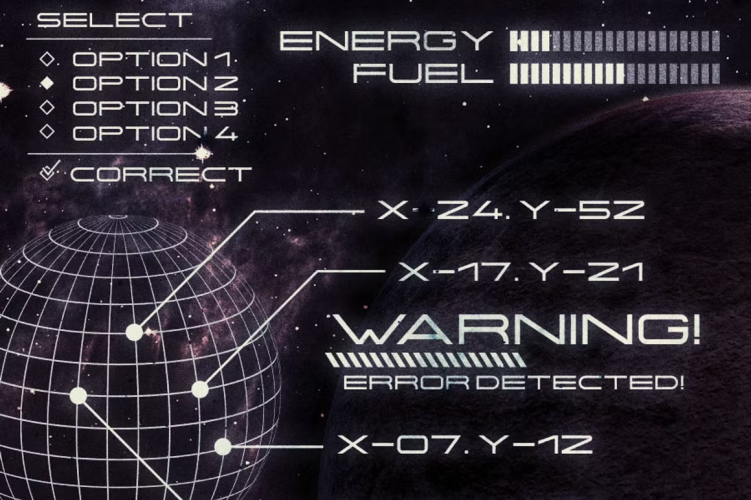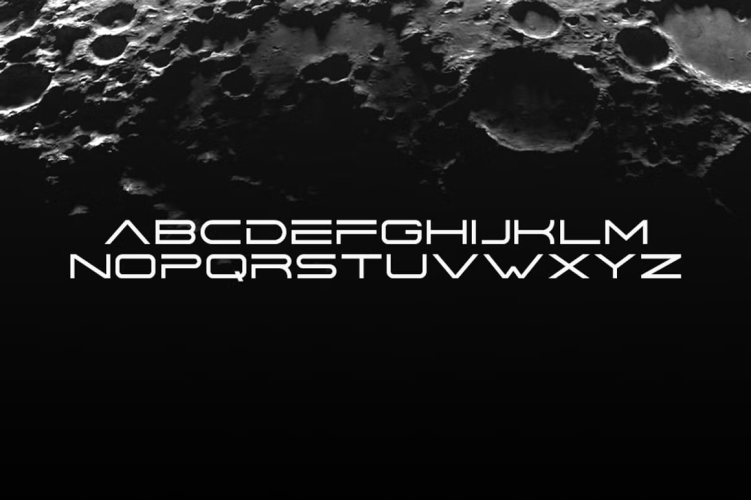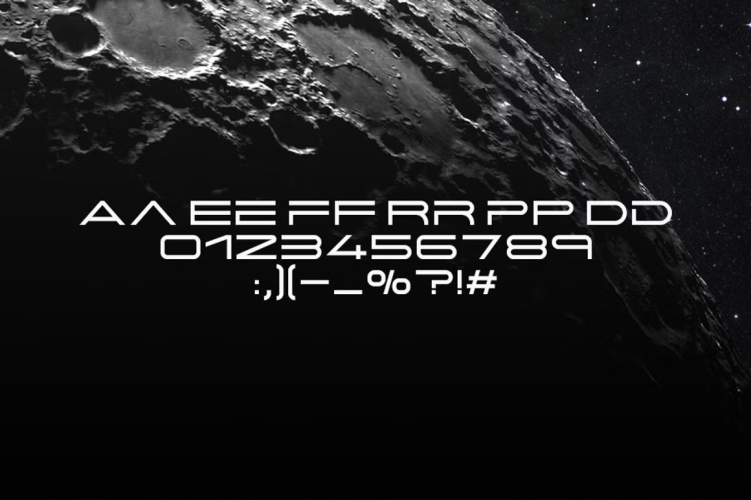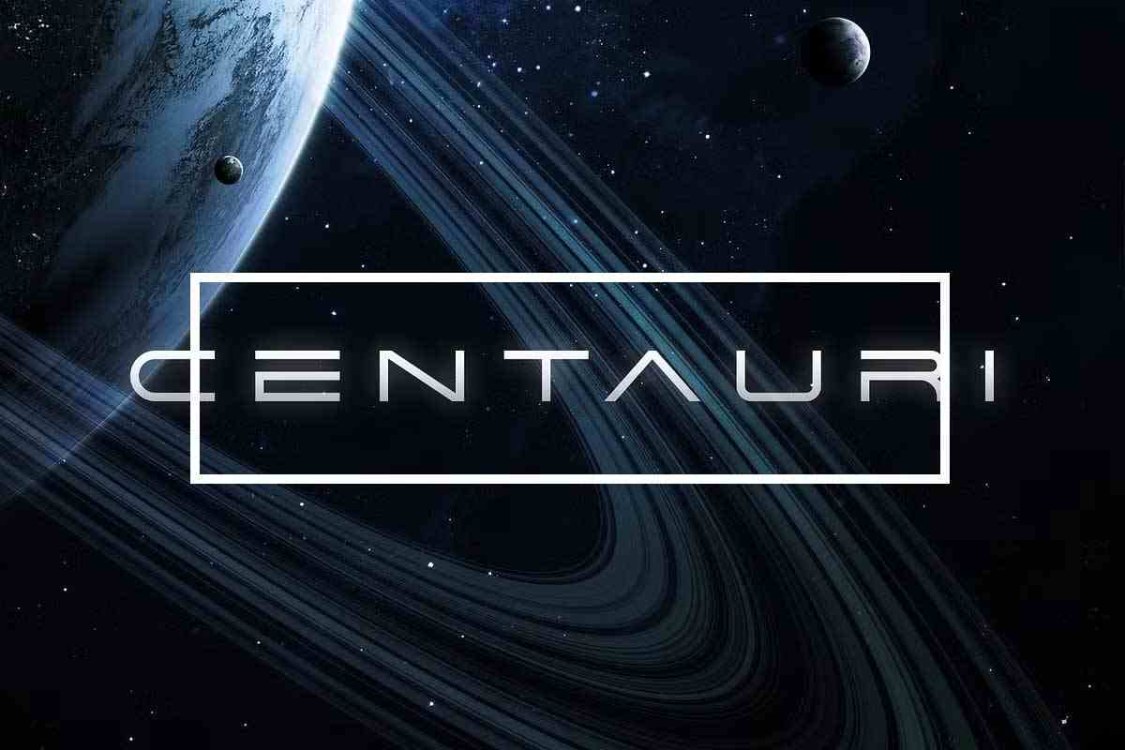
Centauri Font
Centauri is a futuristic font with minimalist, wide letters. It includes English uppercase letters, alternate letters, basic punctuation and numbers.
Where Centauri Font works best
Centauri Font is built for size: event posters, hero headlines and billboard-style layouts.
High contrast display type like Centauri Font reads instantly in thumbnails and motion graphics.
What is Centauri Font good for?